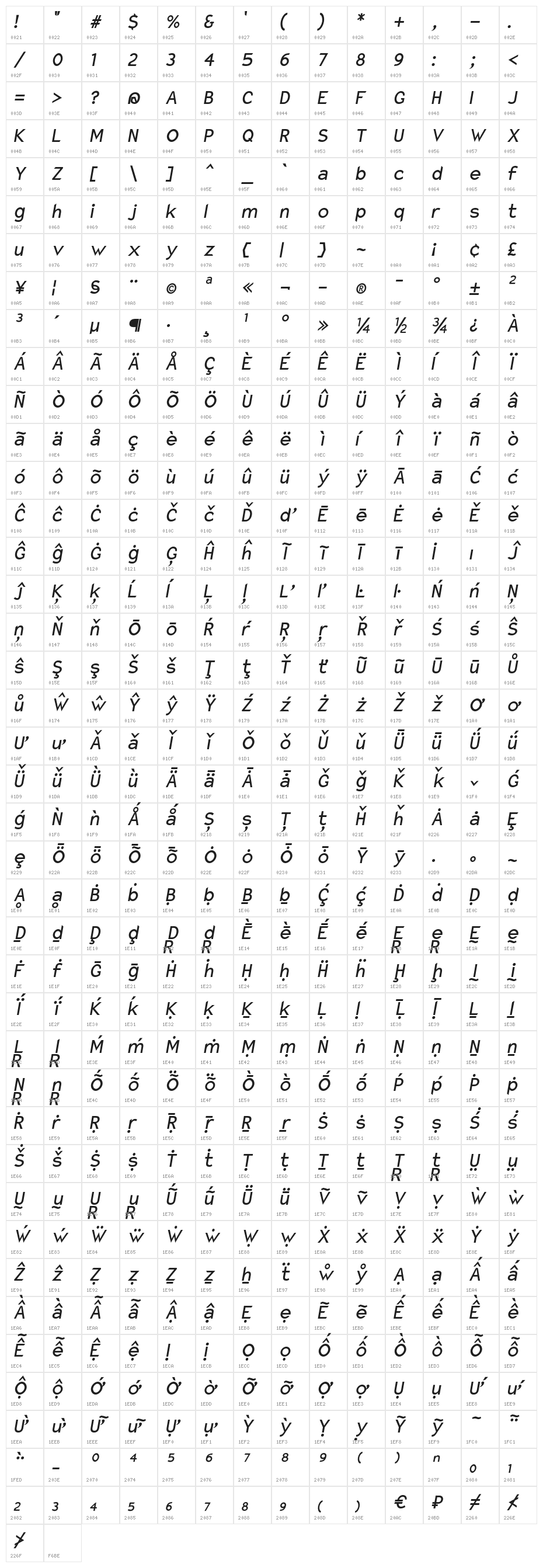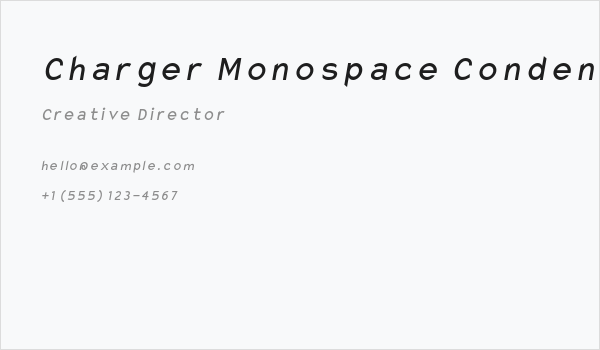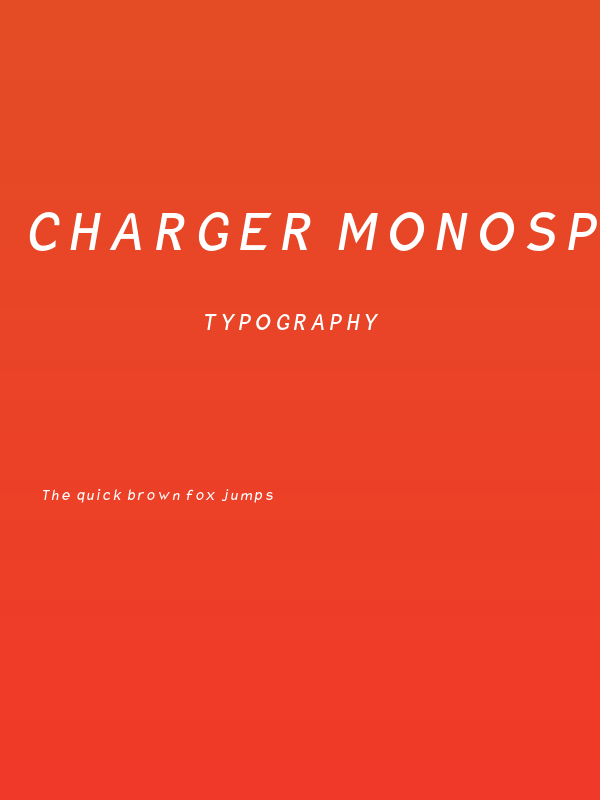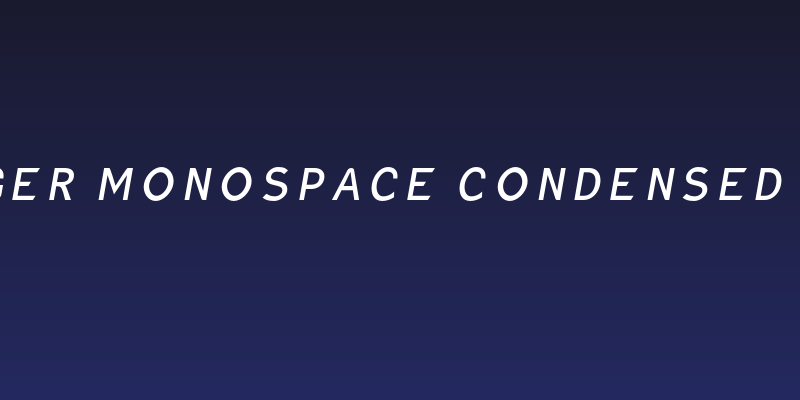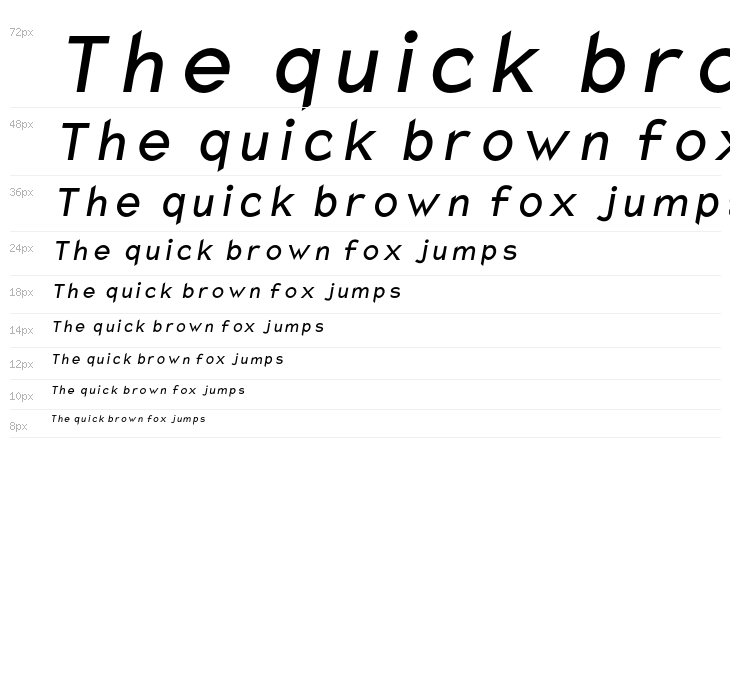
Charger Monospace Condensed Italic Font
Charger Monospace Condensed Italic Description
This font features a sleek, modern design with a monospace structure, ensuring each character occupies the same amount of horizontal space. The condensed form gives it a compact appearance, making it ideal for environments where space is limited. The italic style adds a dynamic, forward-leaning slant, providing a sense of motion and elegance. The characters are clean and well-defined, with a consistent stroke width that maintains readability across various sizes. The font's simplicity and clarity make it versatile for both digital and print media.
| Use Case | Headlines, Body text, Logos, Coding |
| Proposed Projects | Ideal for coding environments, technical documentation, modern branding, and minimalist design projects. |